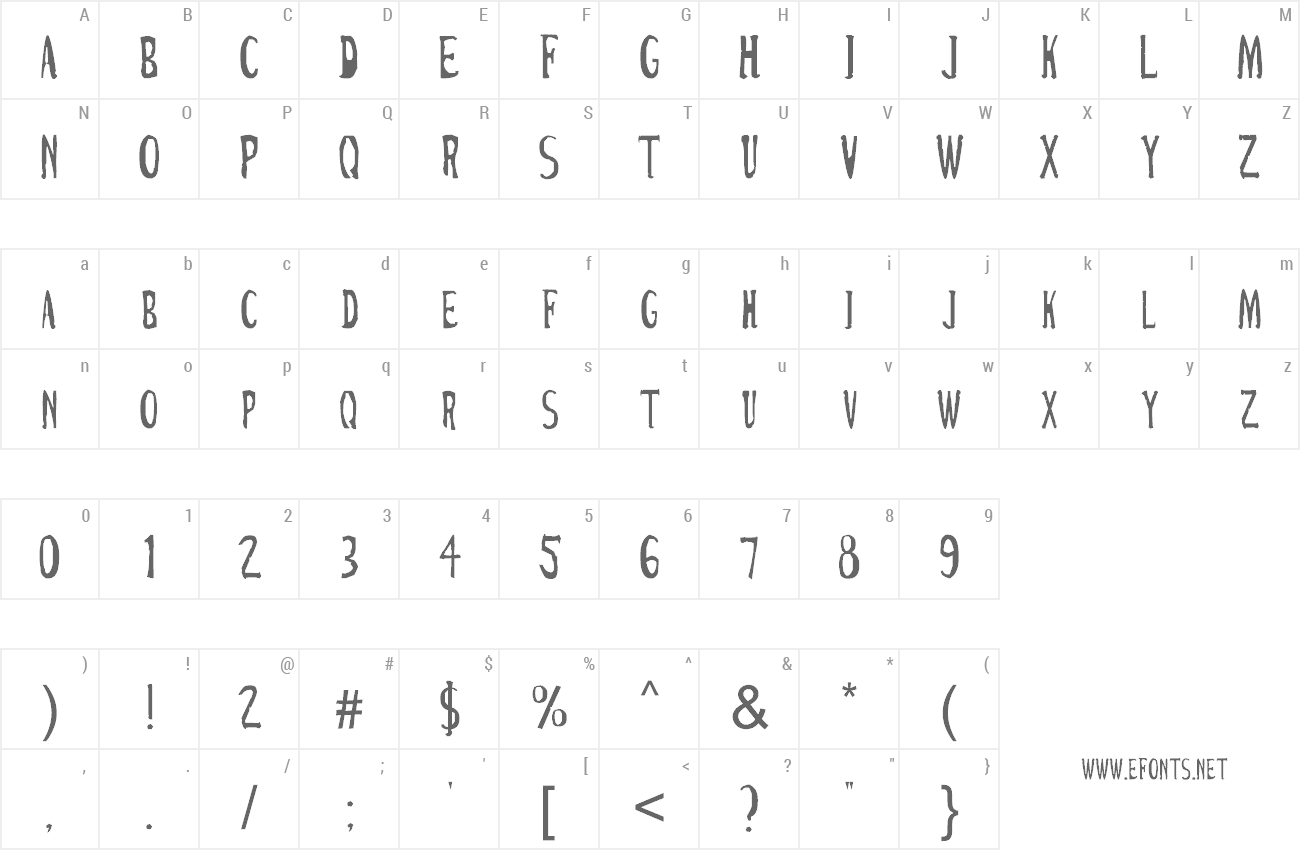
| Font name: | Cirque Du Freak |
| Author: | thefontcreator |
| Note by thefontcreator | |
| Press Alt+0233 to put an unsplotched 'D,' push Alt+0231 to put a splotched 'v,' and push Alt+0164 to put an unsplotched capital 'V.' This font is based on 'Cirque du Freak' by Darren Shan. |